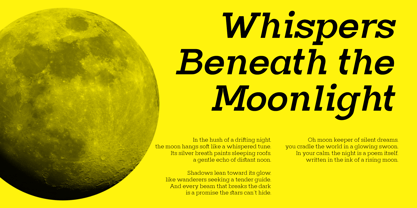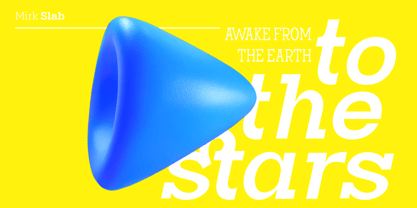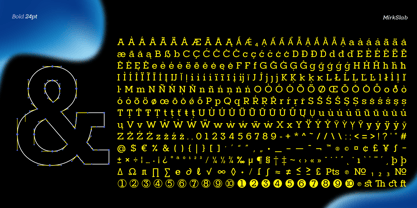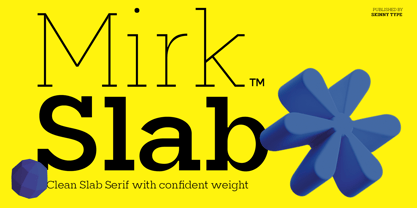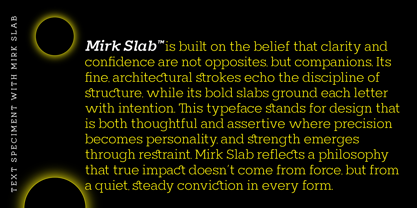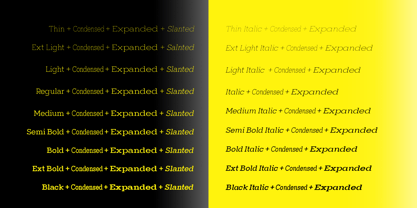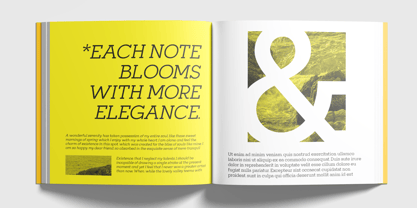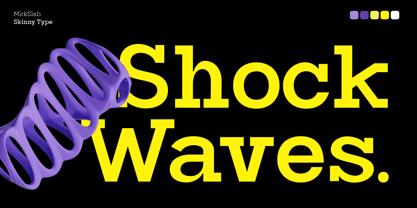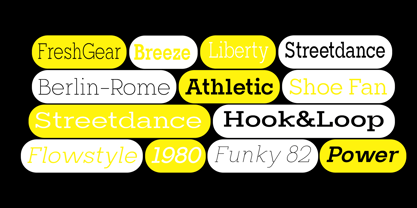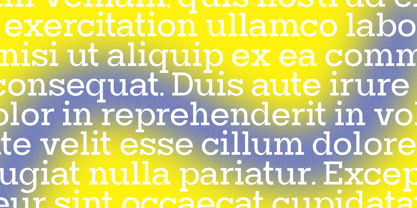
Mirk Slab Variable
by Skinny Type
The Mirk Slab Variable Font Family was designed by Muhajir and published by Skinny Type. Mirk Slab Variable contains 2 styles and family package options. More about this family
Mirk Slab was founded on the idea that clarity and confidence coexist in perfect balance. Its smooth linear framework reflects discipline and structure, while its bold slab forms anchor each character with deliberate weight. This typeface embraces a design philosophy where elegance emerges through precision, and impact is created through quiet confidence. Mirk Slab embodies the belief that powerful communication doesn't need to be shouty; every curve and serif speak with purpose, and modern poise. This typeface comes with a comprehensive feature set, including: Full uppercase and lowercase characters Multilingual Latin support Comprehensive punctuation and symbols Proportional and tabular numerals Ligatures Fraction and ordinal support Improved kerning and spacing Extensive typographic flexibility for both display and editorial use. Mirk Slab is available in 81 font files Together, these variations allow Mirk Slab to easily transition between expressive headlines, structured layouts, and versatile branding needs, delivering a complete typographic ecosystem with elegance and authority.
Mirk Slab Variable